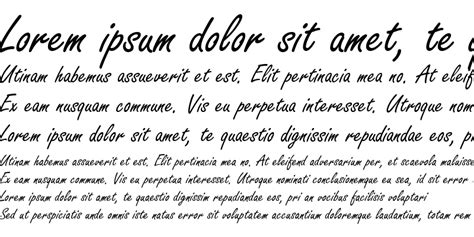
Unleash Your Creativity with the Exquisite Freestyle Script Font License: Elevate Your Designs with Style and Elegance!
Are you tired of using the same boring font in your designs?
Do you want to add a touch of elegance to your work?
Well, look no further because the Exquisite Freestyle Script Font License is here to solve all your problems!
This font is not only beautiful but versatile too. It can be used in various designs such as logos, invitations, and even tattoos.
With its flowing cursive style, it adds a touch of sophistication to any project you use it in. The font is perfect for those looking to add a personal touch to their work.
In conclusion, the Exquisite Freestyle Script Font License is the solution to your design needs. Unleash your creativity and give your work a touch of elegance that will set it apart from the rest.
Finding the right font can make or break your design. While there are a plethora of fonts out there, only a handful stand out from the rest. Freestyle Script Font is one such typeface that exudes style and elegance in every stroke. Purchasing its license can certainly elevate your design to the next level. In this article, we will compare Freestyle Script Font with other well-known fonts on the market and discuss why it's worth investing in a license.
Style Comparison
Freestyle Script Font oozes style with its cursive writing and calligraphic features. The letters look as though they were written by hand with a brush, giving it a natural and organic feel. Times New Roman and Arial, while classic fonts, don't quite have the same stylish appeal. Helvetica is known for its modern and sleek appearance, but it doesn't exude the same personality as Freestyle Script Font, making it a solid choice for certain designs but not all.
Elegance Comparison
When it comes to elegance, Freestyle Script Font nails it. The sweeping, curvy letters add a touch of sophistication to any project, making it perfect for invitations, menus, and high-end branding. Times New Roman has an air of formality, but it lacks the fluidity of Freestyle Script Font. Arial may be clean and precise, but it doesn't have the same graceful lines. Helvetica's modern take doesn't match the luxuriousness of Freestyle Script Font.
Versatility Comparison
While Freestyle Script Font may seem reserved for high-end design work, its versatility makes it a useful typeface for a variety of projects. It can be used for body text, headlines, and captions, as well as for logos and branding purposes. Times New Roman and Arial can handle body text but may not have the same impact as Freestyle Script Font for headlines or logos. Helvetica's strength also lies in its ability to be used for different purposes, but it may not have the same charm as Freestyle Script Font.
Opinion
In conclusion, Freestyle Script Font is an exquisite font that is versatile, stylish, and elegant. While it may come at a price, purchasing its license is worth the investment for both personal and professional designs. Compared to other well-known fonts, Freestyle Script Font stands out with its unique calligraphy and brushstroke designs. Whether it's for invitations or logos, Freestyle Script Font is suitable for all types of projects. So unleash your creativity and elevate your designs with the Exquisite Freestyle Script Font License now!
Where can I get the Freestyle Script Font License?
What are the benefits of using the Freestyle Script Font in my designs?
The Freestyle Script font adds a touch of elegance and sophistication to any design project. Its flowing script letterforms are perfect for creating stylish and memorable designs that will leave a lasting impression on your audience.